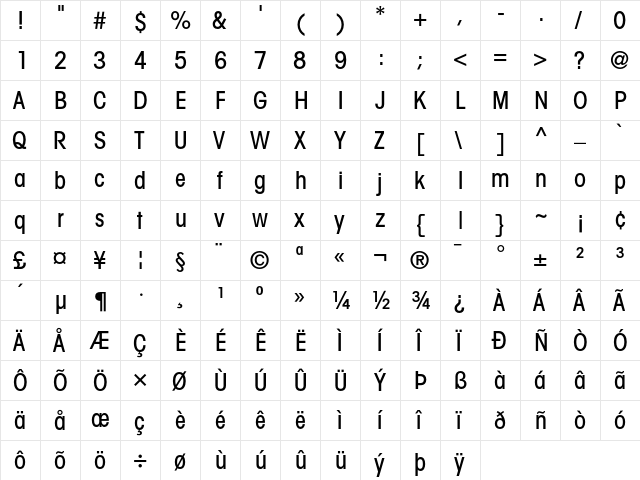
ITC Avant Garde Gothic Condensed Medium Font Preview
Design Context for ITC Avant Garde Gothic Typeface
ITC Avant Garde Gothic takes a clean, functional approach — its unadorned letterforms prioritise legibility and work reliably across screen and print environments. The condensed width makes it efficient for tight spaces without sacrificing legibility.
Font Pairing: Works well alongside a characterful serif or display font that can carry the expressive load while ITC Avant Garde Gothic handles the functional copy.
Pro Tip: Use ITC Avant Garde Gothic tightly set in headlines and banners — its condensed proportions make it ideal for maximum impact in minimum horizontal space.